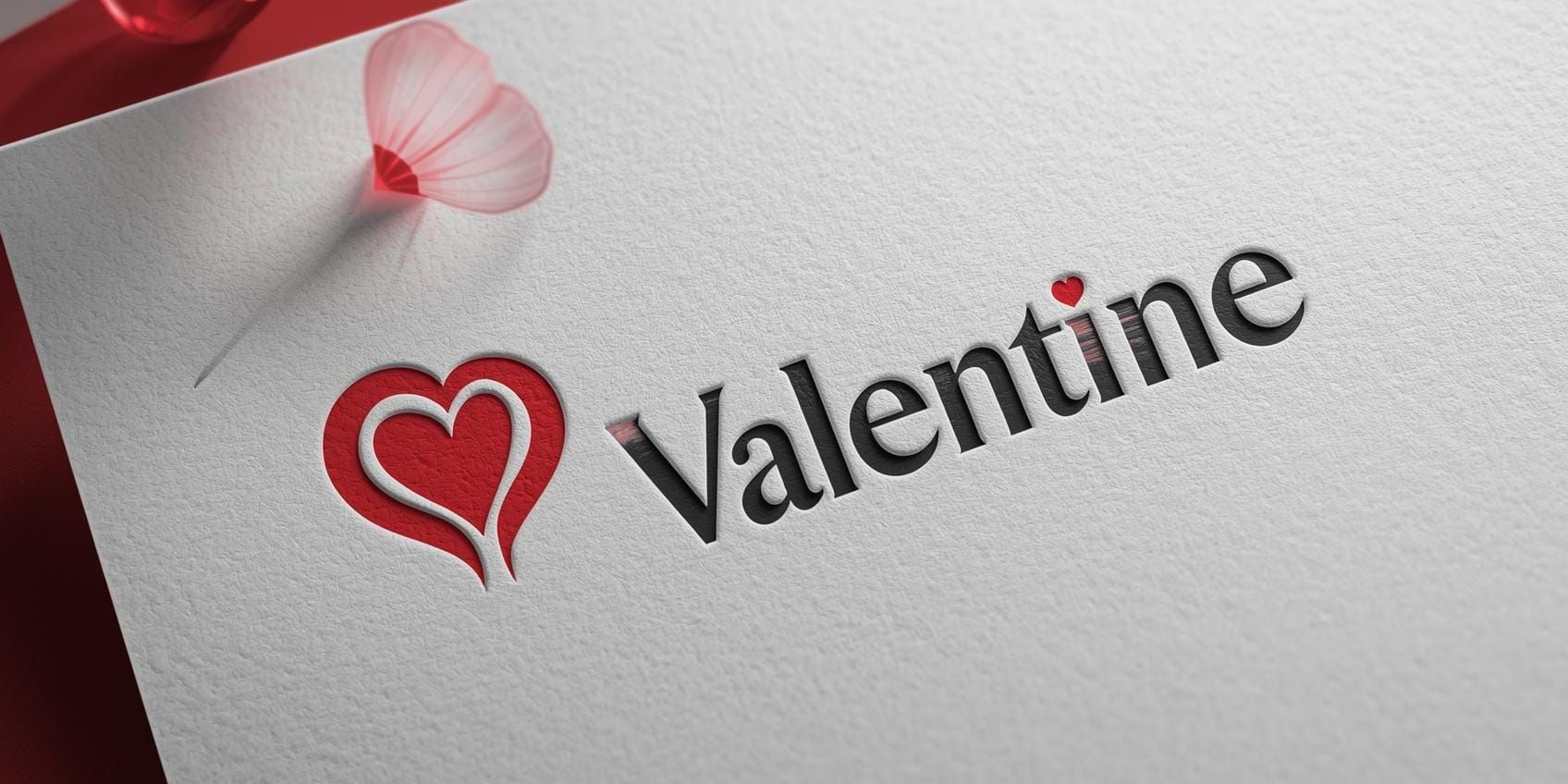
Valentine Logo Design Campaign Ideas for New Collections
Valentine’s campaigns can drive real sales, but only if the branding feels intentional. A quick heart icon slapped onto your usual logo can look lazy, and customers notice. The better move is to build a small seasonal system, few logo variations like consistent modern wordmarks, a campaign badge, that works across packaging, website banners, and social posts. That’s what strong valentine logo design looks like.
In this guide, you’ll get practical valentine logo design campaign ideas for new collections, plus font pairing suggestions inspired by DM Letter Studio-style pairings (bold display + clean sans support, elegant scripts for accents, and calm premium combinations).
Valentine Logo Design for New Collections Starts with a Campaign Concept
Before you design, decide what the Valentine theme means for your brand. This keeps your visuals from turning into generic “pink hearts everywhere.”
Three campaign directions that sell
• Couples gifting: romantic, soft, warm
• Self-love drop: confident, modern, bold
• Friendship + community: playful, inclusive, bright
Once you choose a direction, your valentine logo design decisions get easier, like shapes, colors, and typography all follow the same story.
1. Valentine Logo Design Campaign Idea with Seasonal Logo Lockups (without Changing Your Brand)
The cleanest approach is a seasonal lockup that sits next to your core logo, not a full redesign.
What to create
• primary logo (unchanged)
• Valentine lockup (logo + “Valentine Collection” line)
• compact version (for small spaces)
Why it works
It looks professional and repeatable. This is a strong valentine logo design move for lifestyle brands because it keeps recognition high.
Tip: keep the seasonal line smaller than the brand name, with extra spacing.
2. Valentine Logo Design Campaign Idea with Limited Edition Badge System
Badges are perfect for packaging, product photos, and ads. The trick is making them feel premium, not clipart.
Badge styles that work
• seal badge: round, minimal border, small text
• stamp badge: slightly imperfect, handcrafted feel
• tag badge: simple label shape, modern
Use cases
• product packaging sticker
• hero image corner on product pages
• Instagram story highlight covers
A badge instantly upgrades valentine logo design without forcing you to redraw the main mark.
3. Valentine Logo Design Campaign Idea with Monogram Hearts (Subtle, Not Cheesy)
If your brand uses initials, create a seasonal monogram where the heart is part of the structure, not a decoration.
Good ways to integrate hearts
Heart as a:
• countershape (negative space)
• dot element (like an i-dot)
• connector in a ligature
Avoid
• big heart replacing a letter (often feels amateur)
• multiple hearts in a single mark (looks busy)
This approach gives you a classy valentine logo design option that still feels on-brand.
4. Valentine Logo Design Campaign Idea with Typography-First Valentine Wordmarks
For lifestyle brands, a Valentine wordmark can be just typography with one controlled detail.
Typography-first options
• “Valentine Drop” in a refined serif
• “Love Season” in a clean sans with tracking
• “New Collection” in small caps
This works best when your valentine logo design is meant to sit on banners, lookbooks, or website headers.
5. Valentine Logo Design Campaign Idea with Icon Set for The Whole Campaign
Instead of one heart, make a small icon system so the campaign feels designed.
4-6 icons is enough
• heart outline (simple)
• ribbon bow
• rose line icon
• cupid arrow (minimal)
• gift box
• sparkle/star
Use the icons as supporting elements, not the logo itself. In strong valentine logo design, the logo stays clean and the icon system adds seasonal flavor.
6. Valentine Logo Design Campaign Idea with Packaging Overlay System
Lifestyle brands often sell bundles or gift sets during Valentine’s. Packaging is where your seasonal identity becomes real.
Simple packaging overlays
• belly band design
• sticker seal
• sleeve wrap
• insert card
Keep the layout consistent, change only:
• color accent
• collection name
• small icon
This approach makes valentine logo design feel like a real product launch.
7. Valentine Logo Design Campaign Idea with Social-First Logo Variations
Sometimes the “logo” for Valentine is really a social template system.
What to design for social
• profile icon / highlight cover version
• story header version
• square post version
• reel cover version
Keep the same type and spacing. Change only the theme accent. That consistency is what makes valentine logo design look premium in a feed.